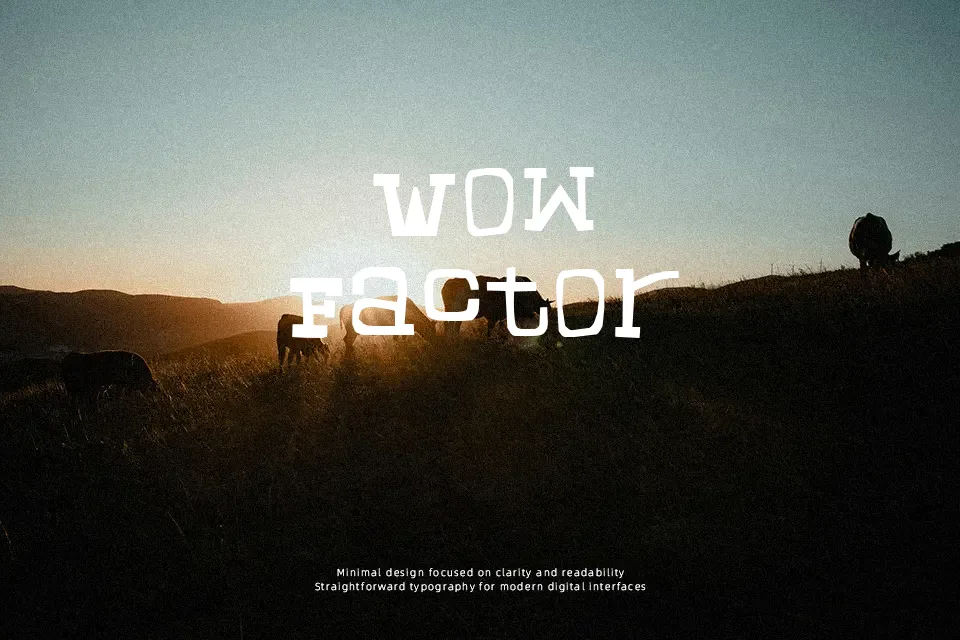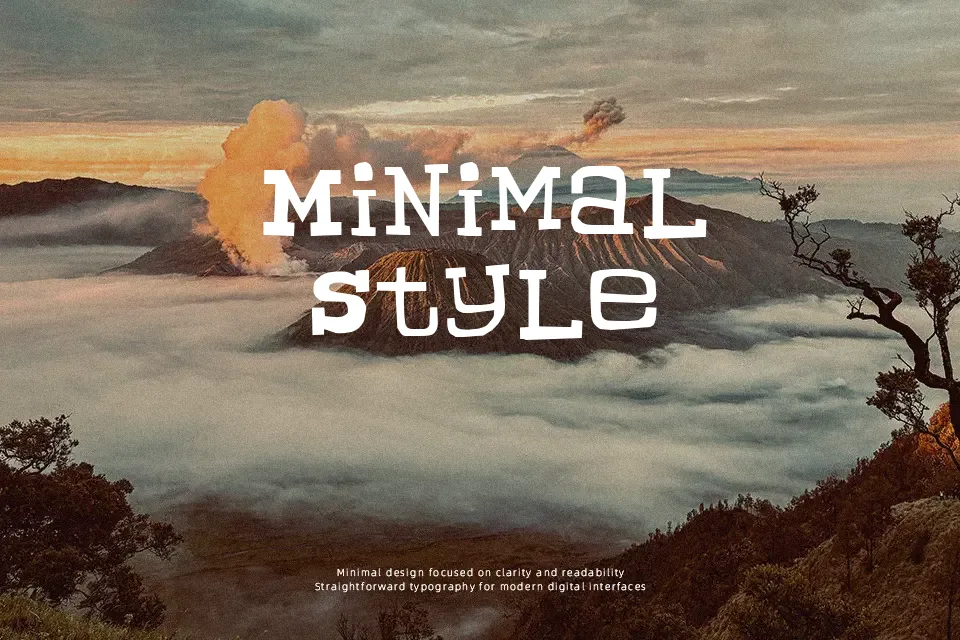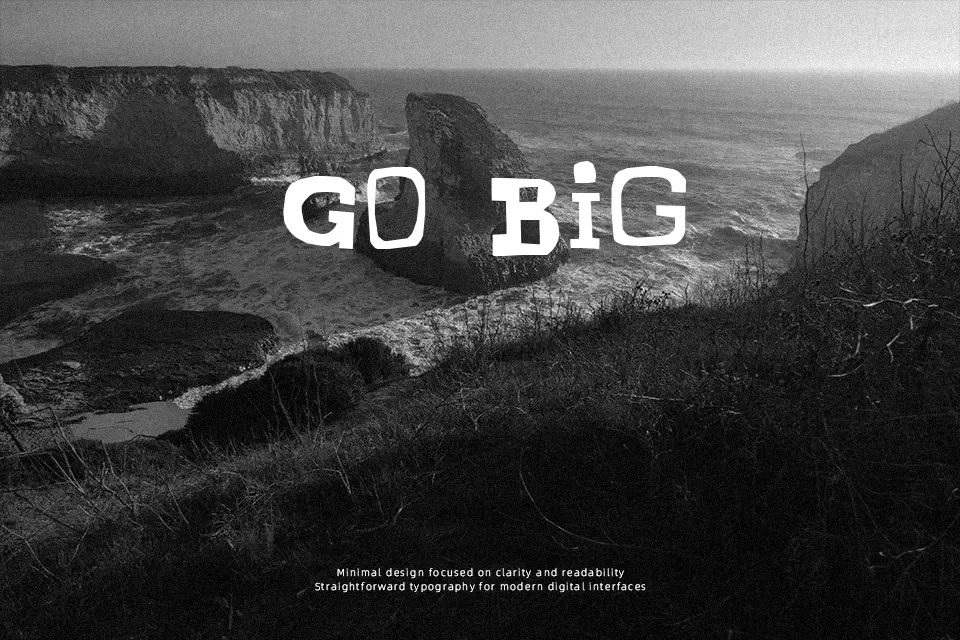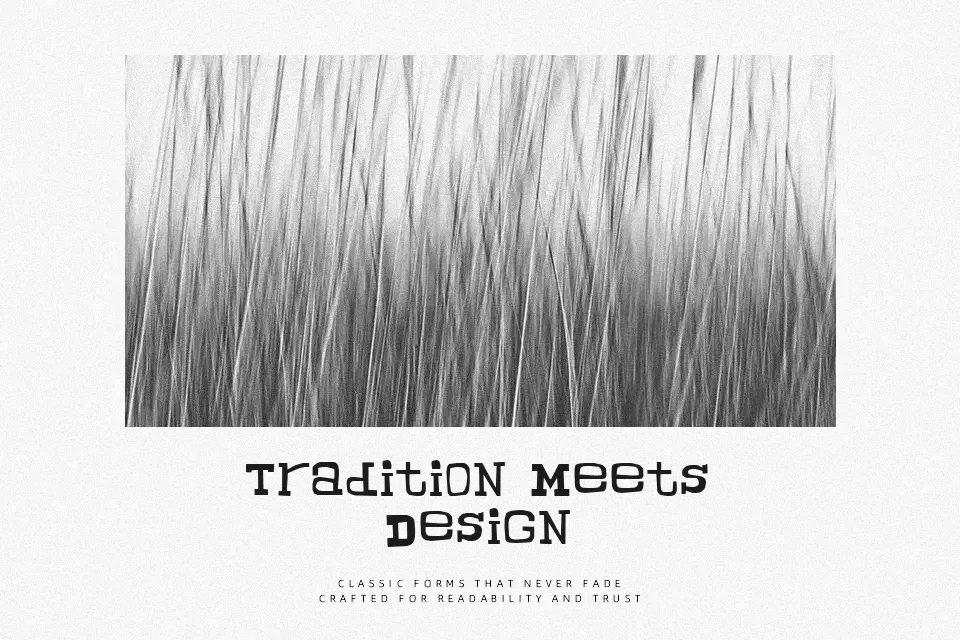
Chunky Munky Serif Font
Designed by Thomas Canale
Chunky Munky Serif Font features dense, heavy-weight letterforms anchored by stubby serifs and irregular stroke thicknesses that create a whimsical aesthetic. Wide character proportions pair with relatively tight spacing to produce a bold visual rhythm across short text strings. The uppercase glyphs command attention with sturdy upright stems, while the lowercase forms retain generous internal counters to preserve clarity at medium scales. Spacing remains balanced enough for large headers, though dense letter combinations lose definition when scaled down to continuous body copy. For optimal results, the typeface excels across children’s book covers, theme park signage, and vibrant merchandise branding.
Best For: children’s book covers, toy packaging, animated title cards, theme park signage
Not Ideal For: long paragraph text, mobile interface labels, corporate reports, dense editorial layouts